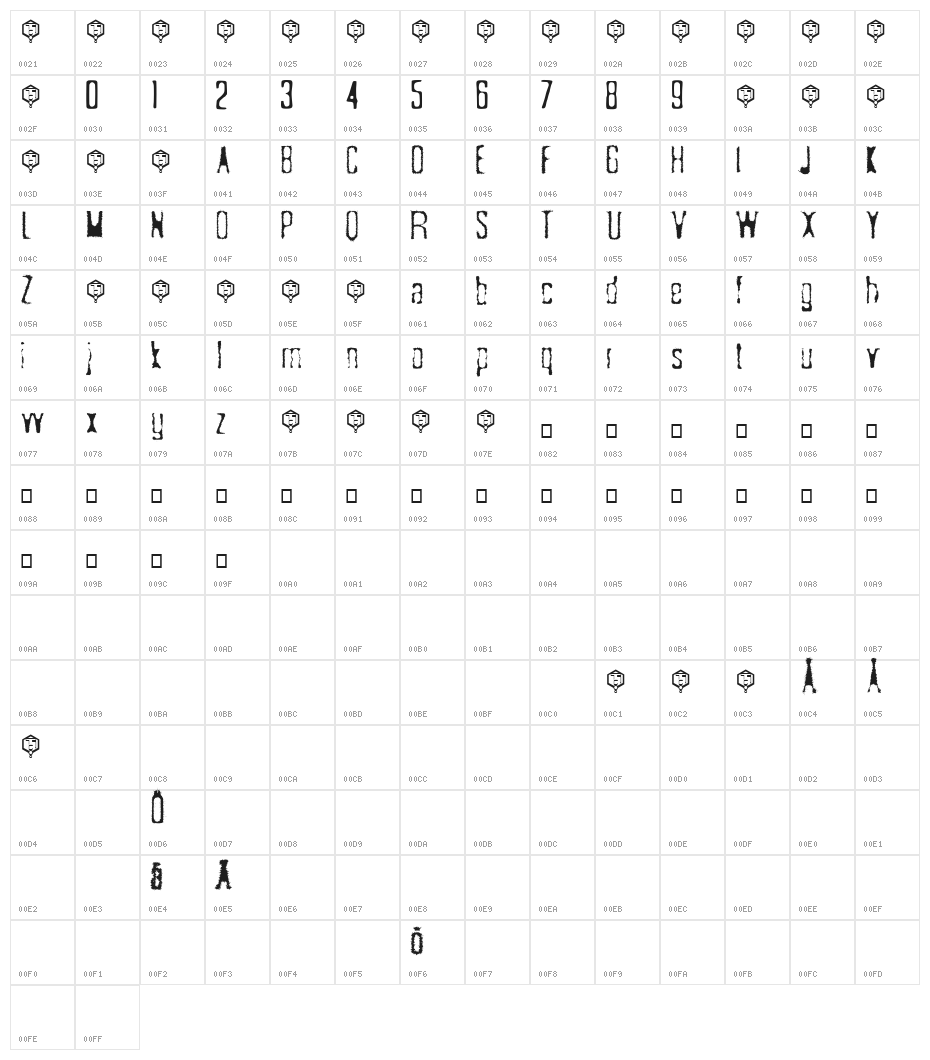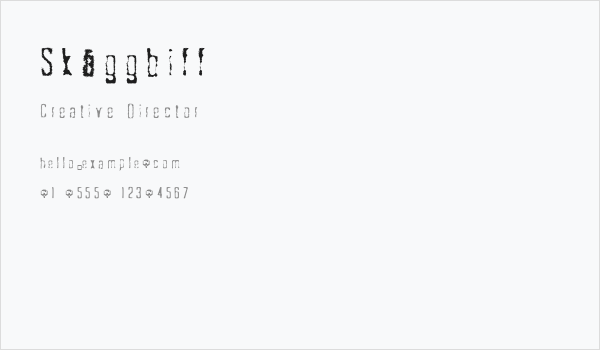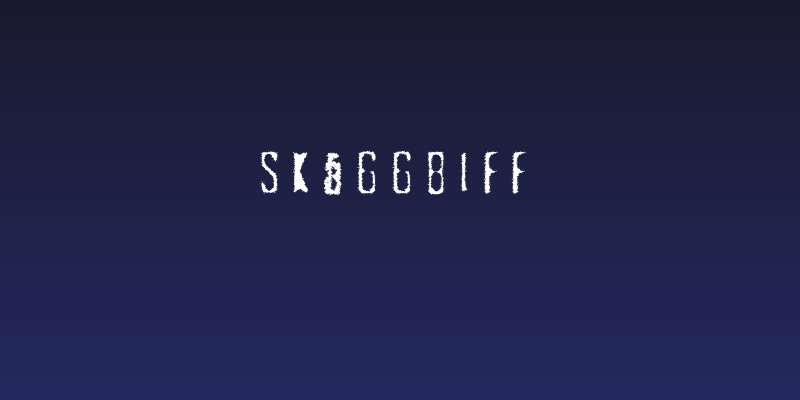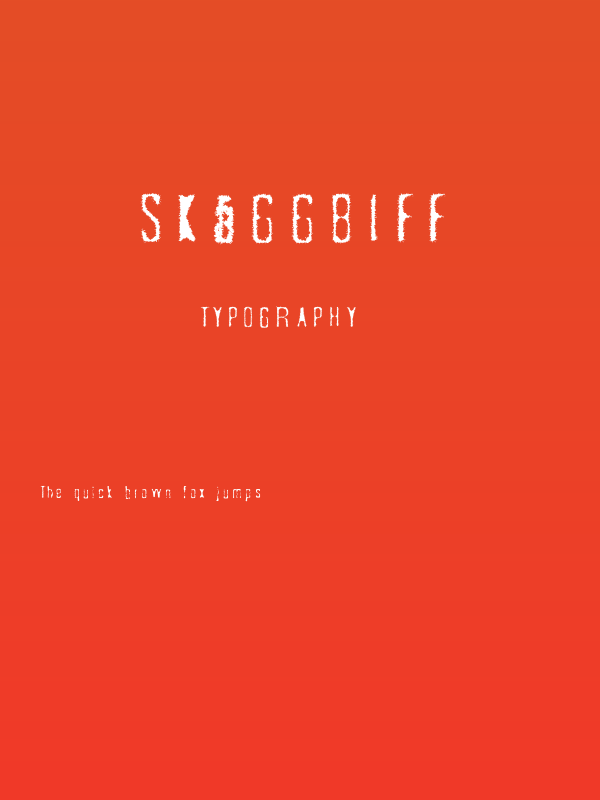
Skäggbiff Font
Skäggbiff Description
This font features a distressed, grunge style with uneven edges and a weathered appearance. The uppercase letters have a bold presence, while the lowercase letters maintain a consistent style with slight variations in height and width. The numerals are clear and bold, providing a strong contrast to the more textured letterforms. Special characters follow the same distressed aesthetic, adding to the overall cohesive look. The font's unique style makes it suitable for projects that require a rugged, vintage, or industrial feel.
| Proposed Projects | Ideal for album covers, posters, branding for edgy or vintage-themed products, and any design needing a rugged aesthetic. |